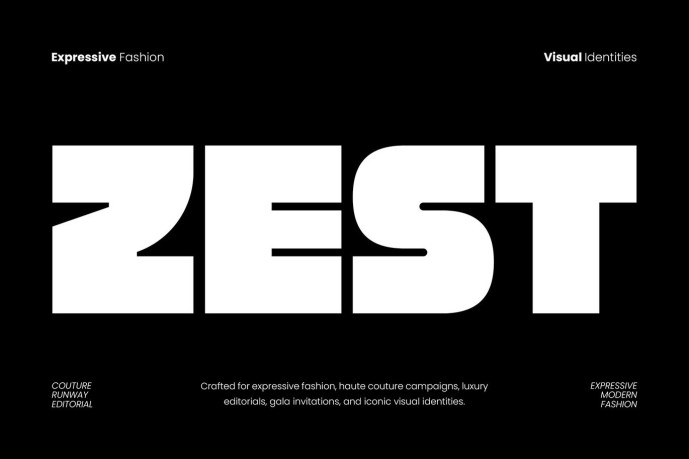
Zest – Bold Fashion Display Font
ZEST – Bold Fashion Display Font
ZEST – Bold Fashion Display Font is designed for creators who want bold editorial typography with maximum visual impact. Built with geometric letterforms, powerful proportions, squared corners, and confident strokes, ZEST delivers a modern personality that stands out across fashion branding, magazine covers, advertising campaigns, posters, product packaging, social media, and creative editorials. Every character is crafted to create bold headlines while maintaining clean readability and a professional contemporary style.
From fashion editorials and creative campaigns to premium branding and promotional posters, ZEST gives every headline a confident voice. Its bold structure helps brands communicate strength, creativity, and modern style, making it an excellent choice for designers who want memorable typography that instantly captures attention.
Key Features :
Bold Editorial Style Perfect for eye-catching headlines and magazine layouts.
Strong Geometric Forms Clean, structured letterforms with modern proportions.
High Visual Impact Creates powerful titles that command attention.
Versatile Creative Use Ideal for branding, posters, packaging, editorials, advertising, and social media.
Multilingual Support Supports 67 languages for international design projects.
Professional Workflow Optimized for both digital and print applications.